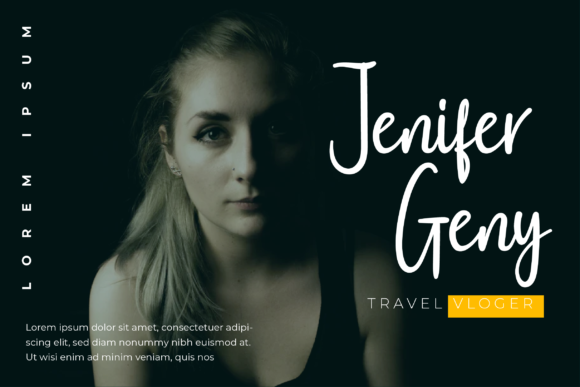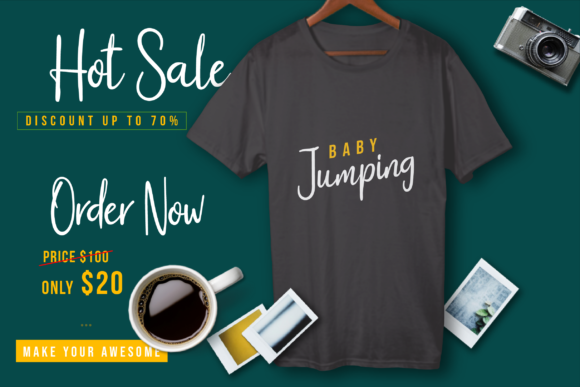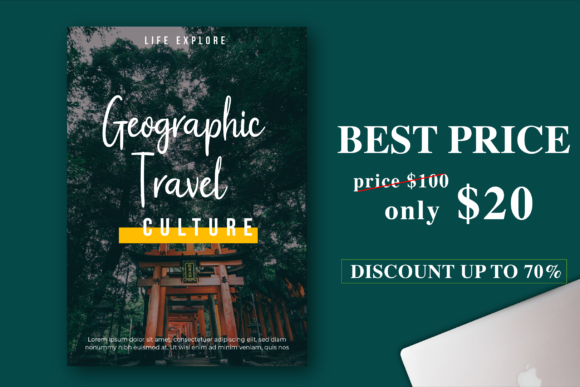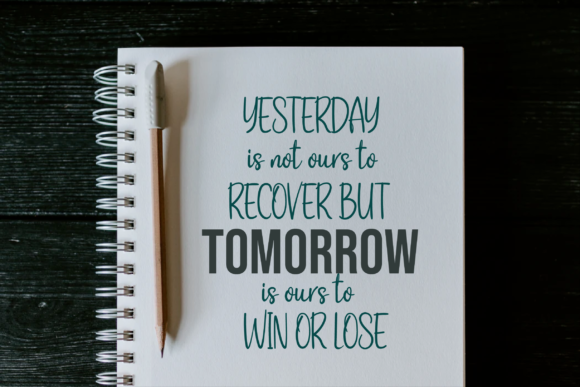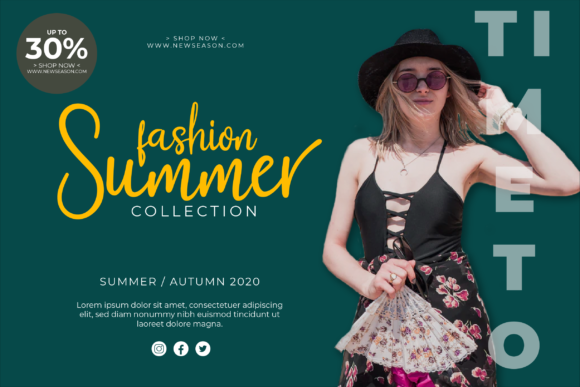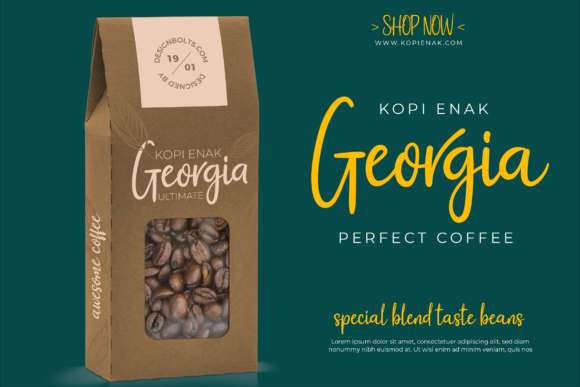
Introducing Geofany Font: Elevate Your Designs with Elegance and Sophistication
In the world of typography, a well-crafted font can make all the difference in elevating your designs from ordinary to extraordinary. For designers and crafters seeking to add a touch of elegance and sophistication to their work, Geofany Font is an exceptional choice. This stunning handwritten script font is designed to bring a beautiful, personal touch to a wide range of design projects.
The Beauty of Geofany Font
Geofany Font boasts an elegant and beautiful look that is sure to captivate your audience. Its flowing script and delicate lines evoke a sense of refinement and luxury, making it perfect for designs that require a high level of sophistication. Whether you’re working on wedding invitations, thank you cards, quotes, greeting cards, logos, or business cards, Geofany Font is the ideal choice to add a touch of class and distinction.
One of the standout features of Geofany Font is its versatility. This font is not limited to a specific type of design; rather, it can be used across a wide range of projects. Imagine being able to create stunning wedding invitations, elegant thank you cards, and eye-catching quotes, all with the same font. Geofany Font makes it possible, allowing you to maintain a consistent aesthetic across your designs while experimenting with different styles and formats.
Geofany Font takes convenience to the next level with its PUA (Private Use Area) encoding. This means that accessing all the glyphs and swashes is incredibly easy. With PUA encoding, you can effortlessly navigate through the font’s extensive library of characters, including alternates, ligatures, and swashes, to find the perfect element for your design. This feature not only saves you time but also gives you the creative freedom to experiment and push the boundaries of your designs.
Why Choose Geofany Font?
- Elegant and Beautiful: Geofany Font adds a touch of elegance and sophistication to any design.
- Versatile: Suitable for a wide range of design projects, from wedding invitations to logos and business cards.
- PUA Encoded: Easy access to all glyphs and swashes for effortless design experimentation.
- Handwritten Touch: Brings a personal, human touch to your designs, setting them apart from the rest.